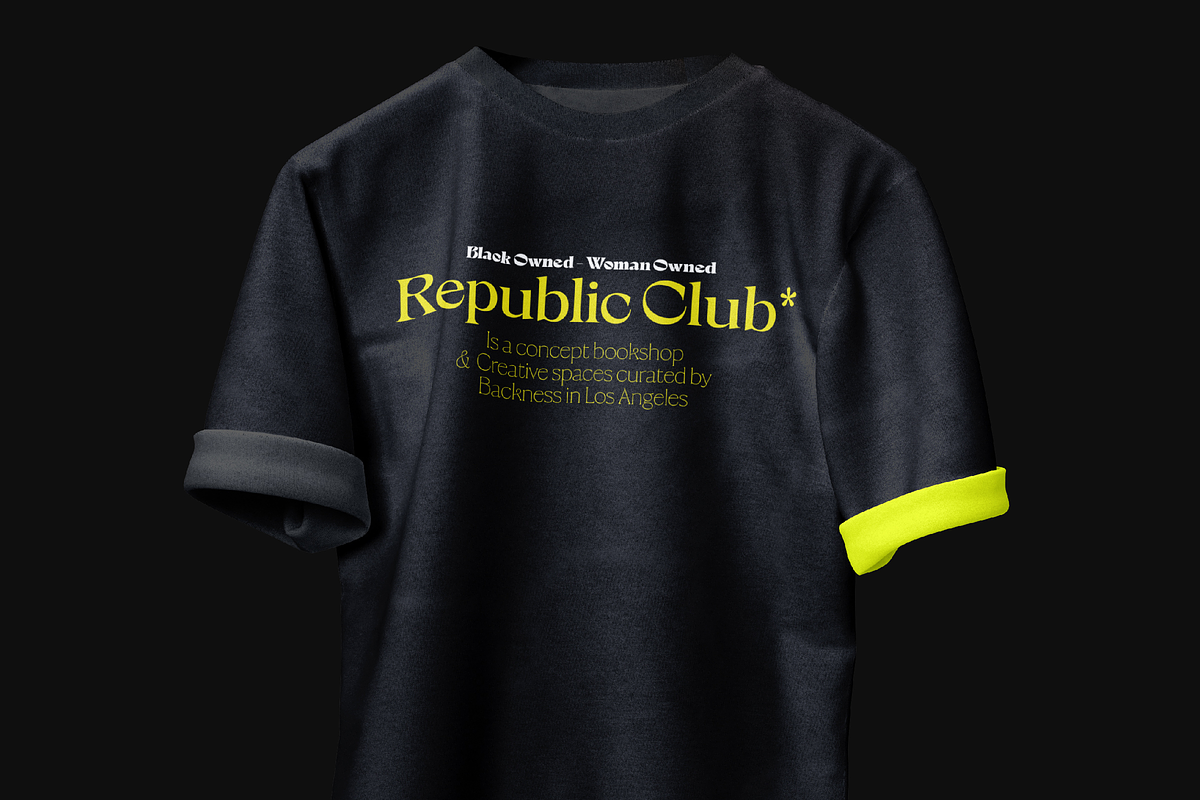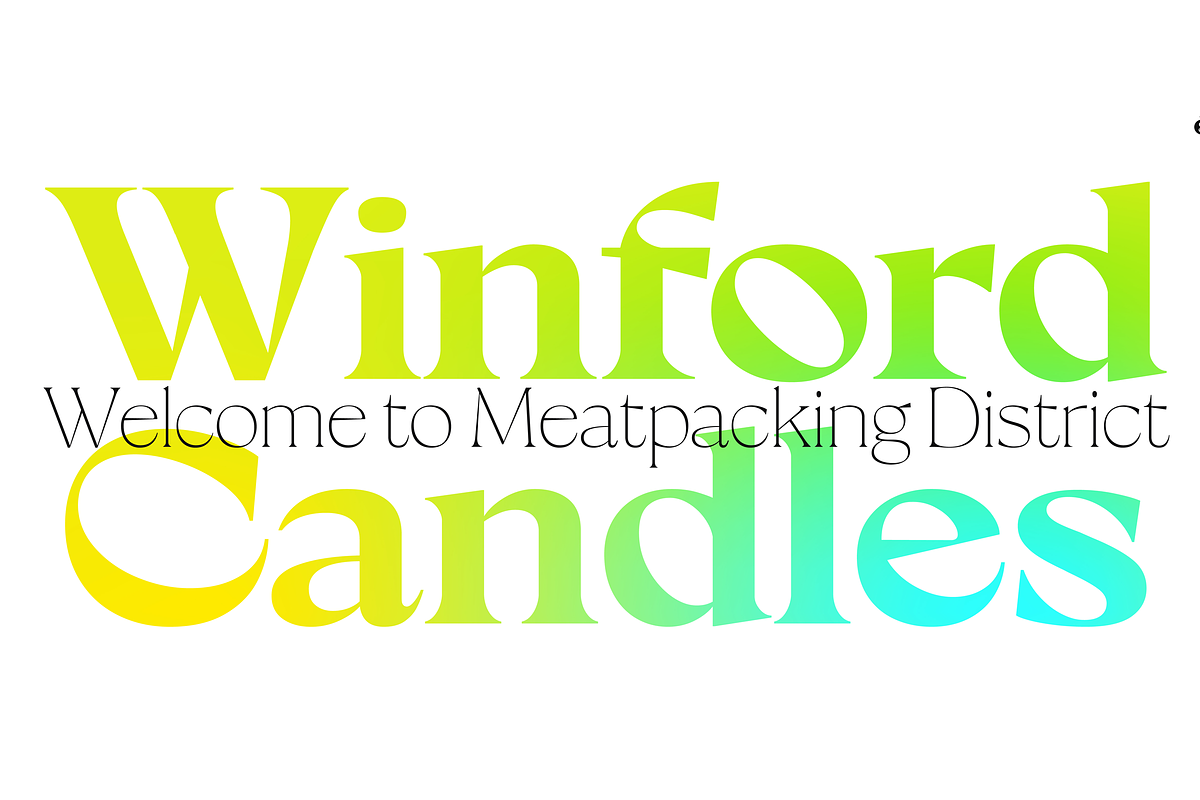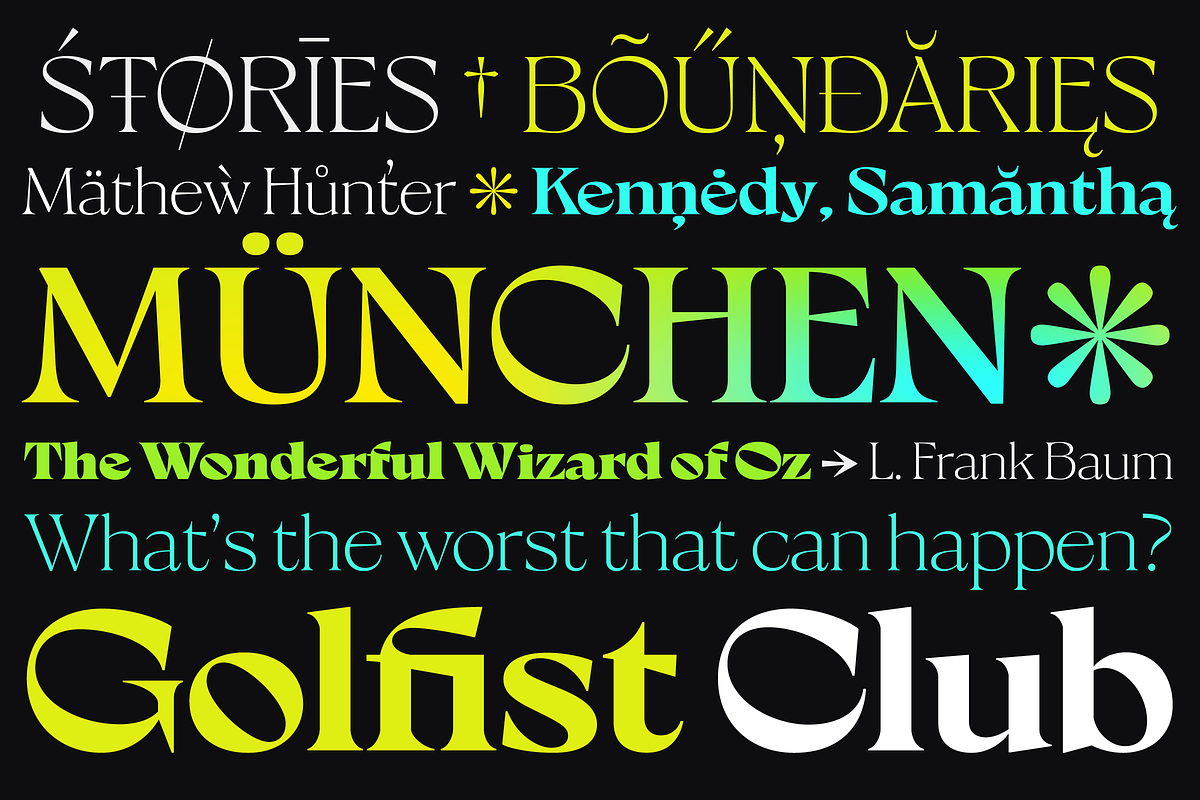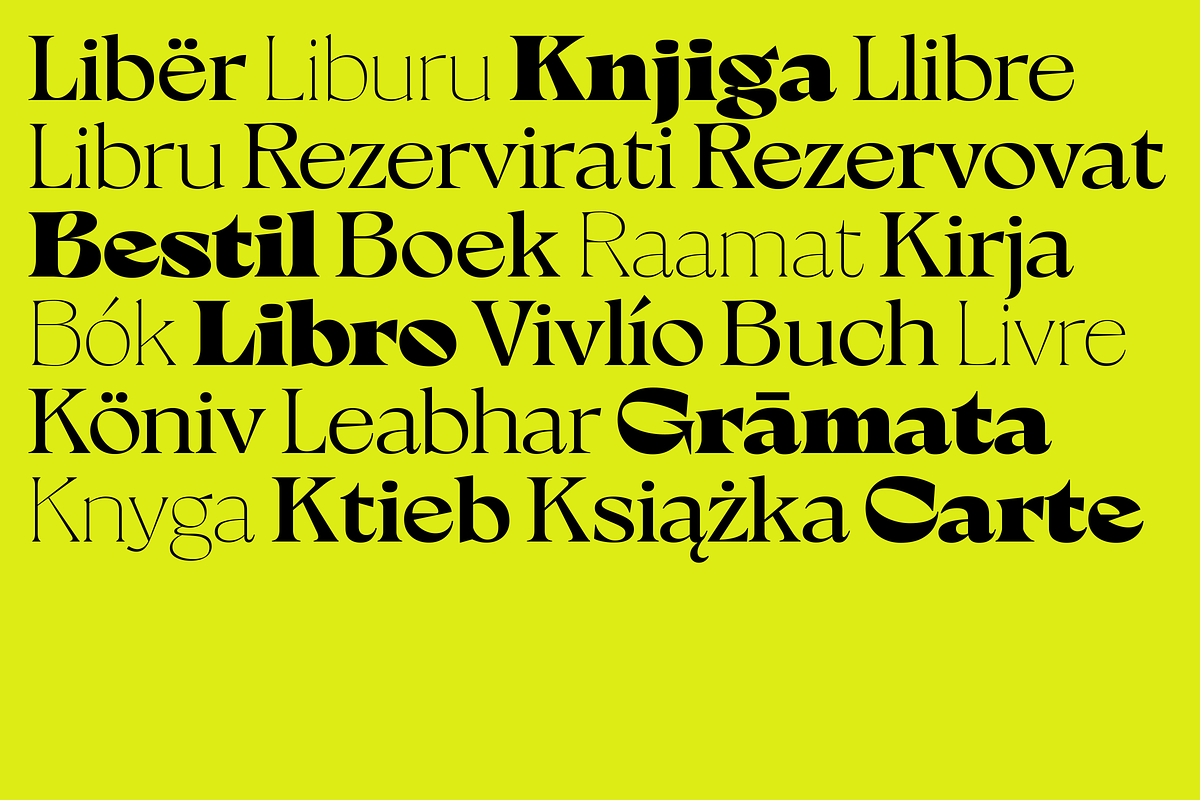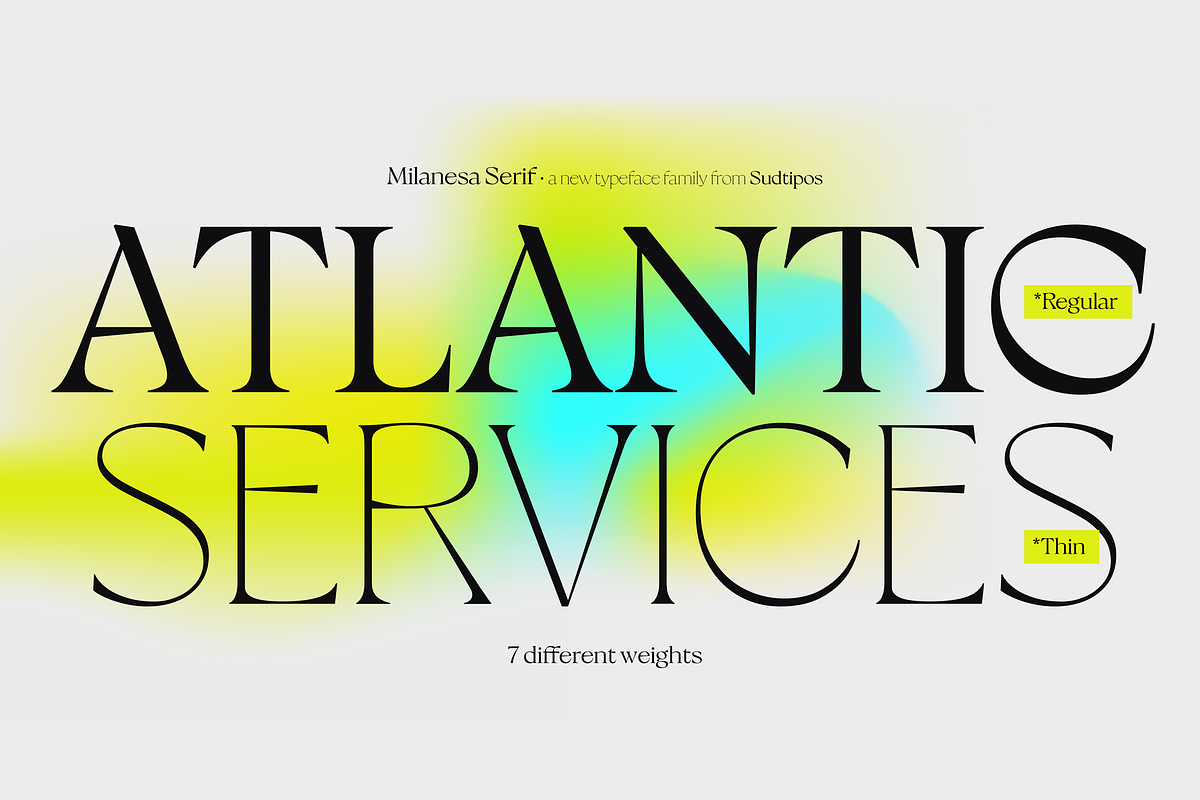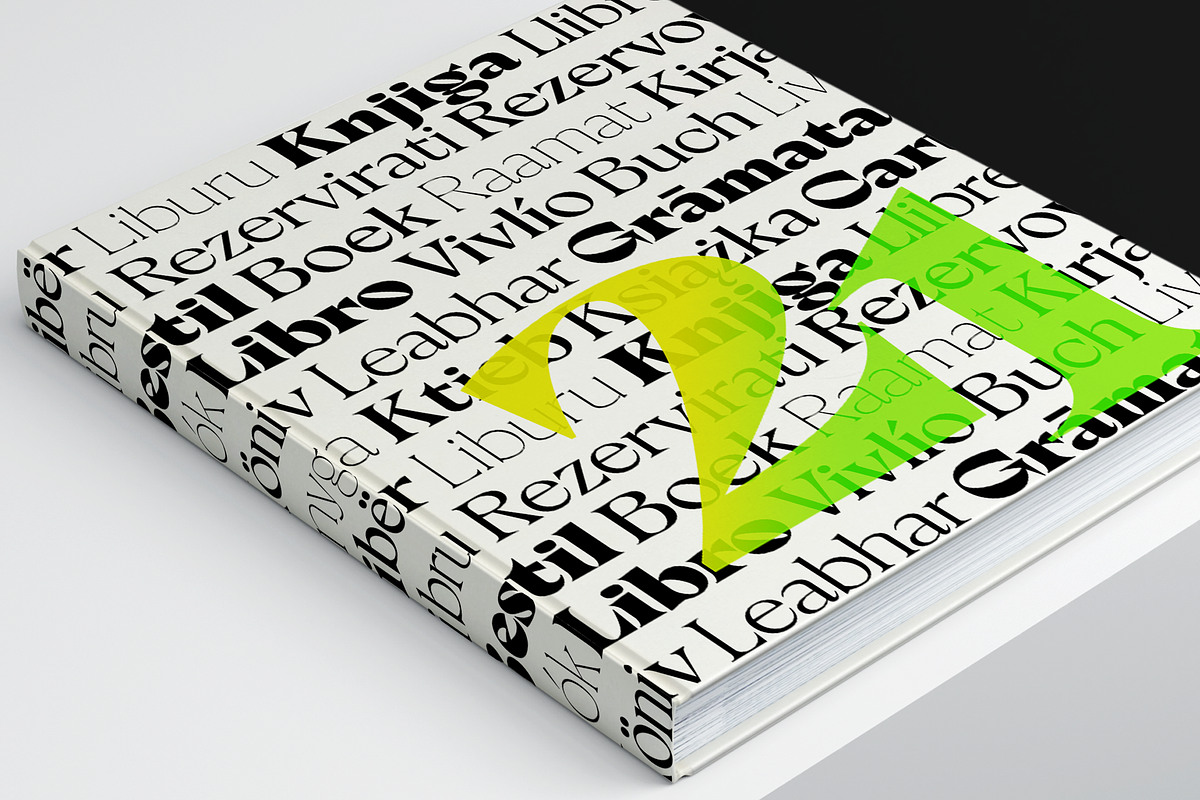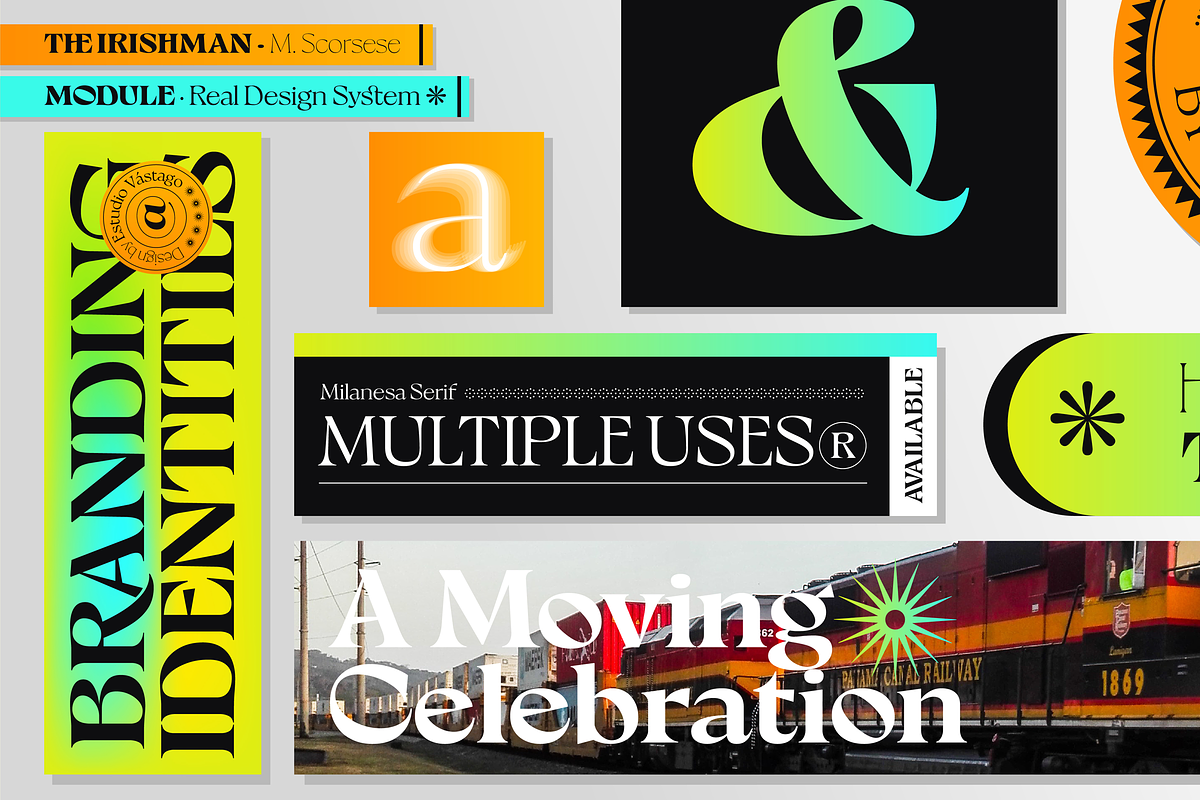
Milanesa Serif
Serif typefaces have undergone a constant change over time; this has allowed the emergence of modern shapes that bring expressiveness to each letter, making them fun to use and design.
Milanesa Serif is a typeface family with seven weights that changes the contrast angle in its black version, achieving a particular transition in the different interpolations. Beyond maintaining the traditional canon in a serif, Milanesa plays with a modern concept to impose its versatility in different graphic applications.
Milanesa Serif undergoes a metamorphosis in its weights, intensifying its shapes and varying its counterforms without losing the sense of the typeface family, perfect for versatile uses such as web design, editorial or packaging, among many others.